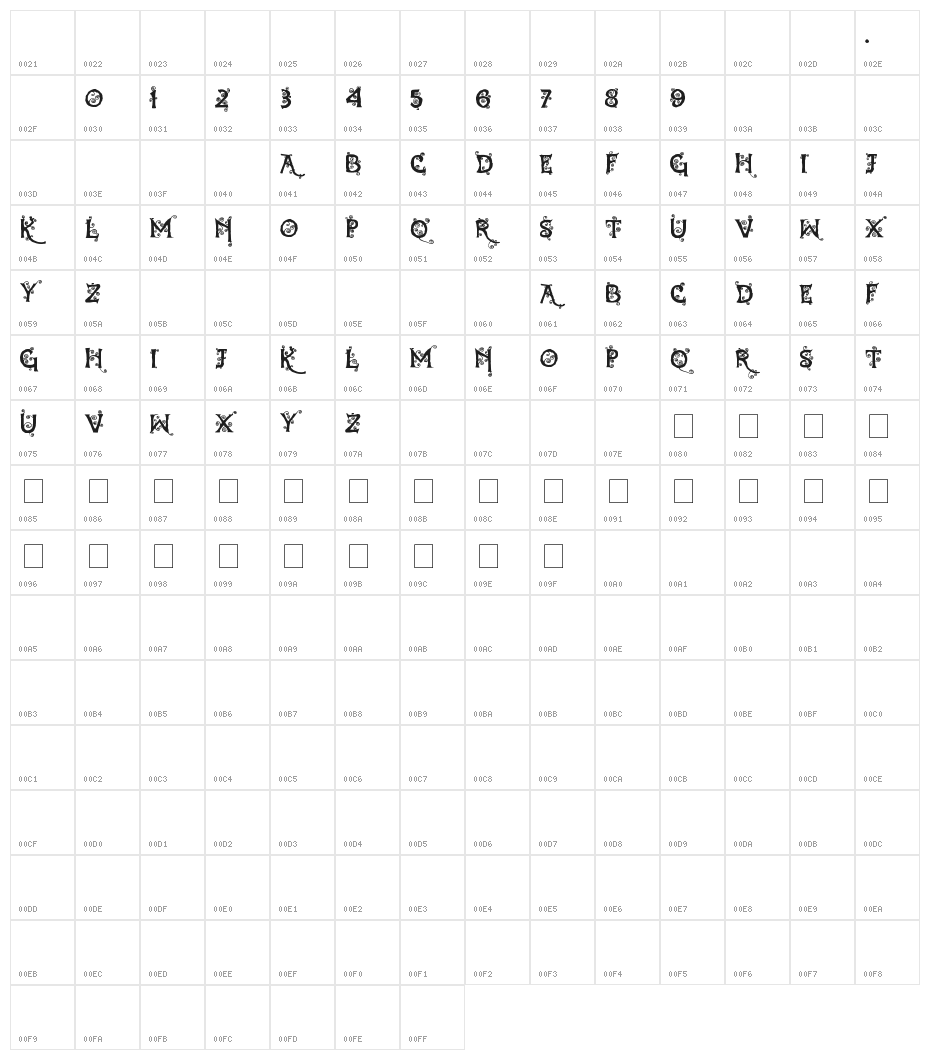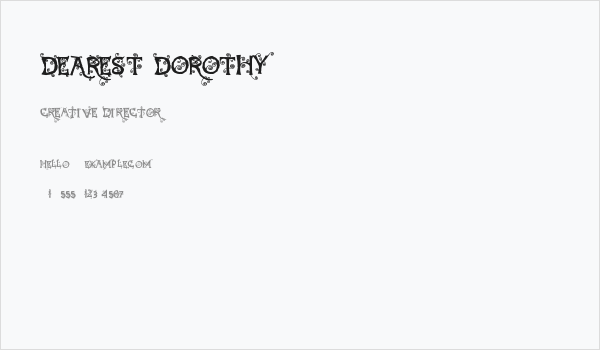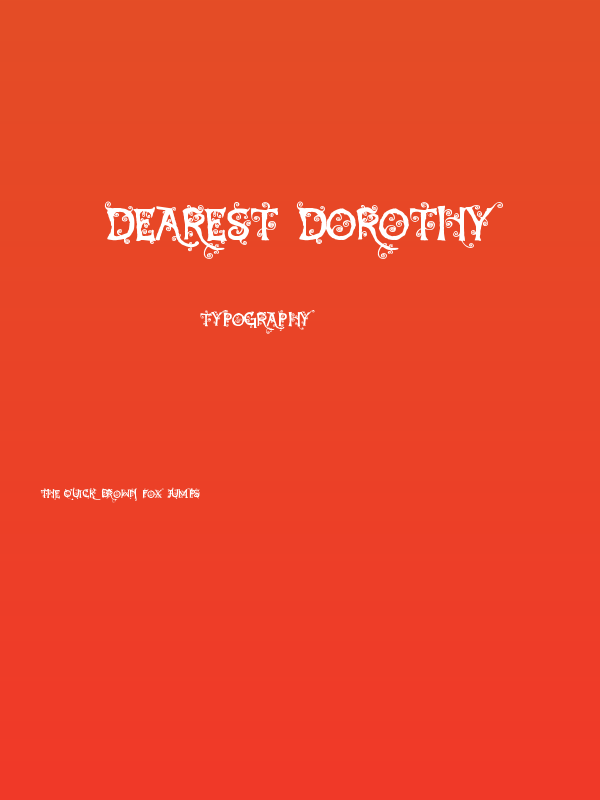
Dearest Dorothy Font
Dearest Dorothy Description
This font is a whimsical and decorative typeface characterized by its playful and intricate design. Each letter is adorned with swirling, vine-like embellishments that give it a unique and artistic flair. The bold strokes and ornate details make it stand out, creating a sense of fantasy and creativity. The font maintains a consistent weight throughout, ensuring readability despite its decorative nature. Its elaborate style is perfect for capturing attention and adding a touch of elegance and charm to any project.
| Proposed Projects | Ideal for invitations, greeting cards, fantasy-themed posters, and artistic branding. |